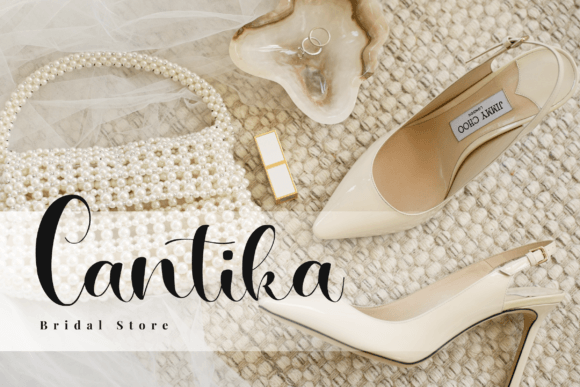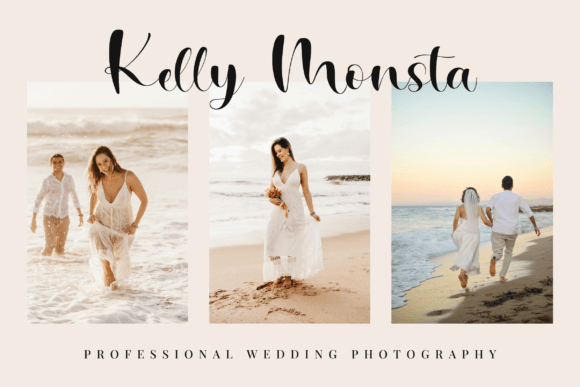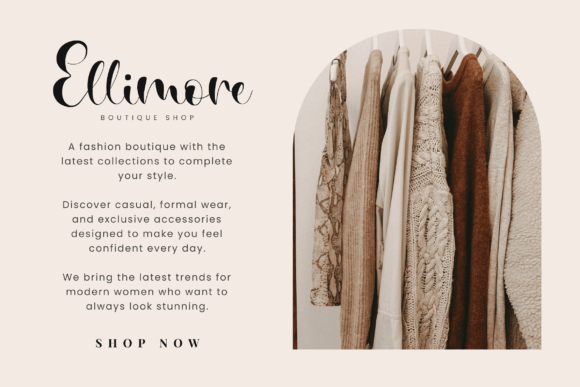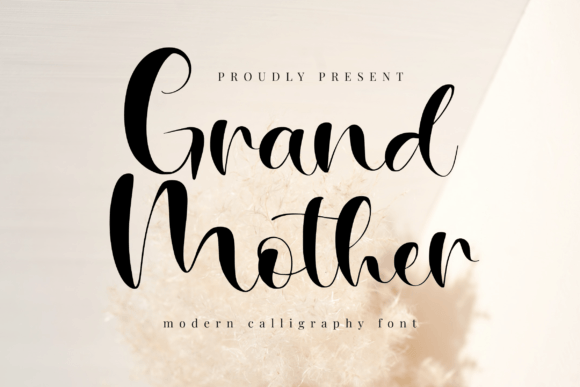
Introduction to Grand Mother Font
Grand Mother is a wedding script calligraphy font.
This font is inspired by the typography on a wedding invitation This font is perfect for wedding designs.